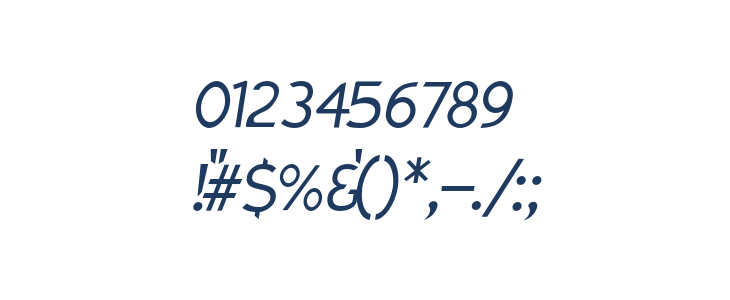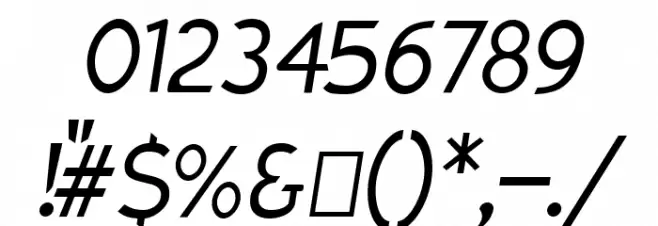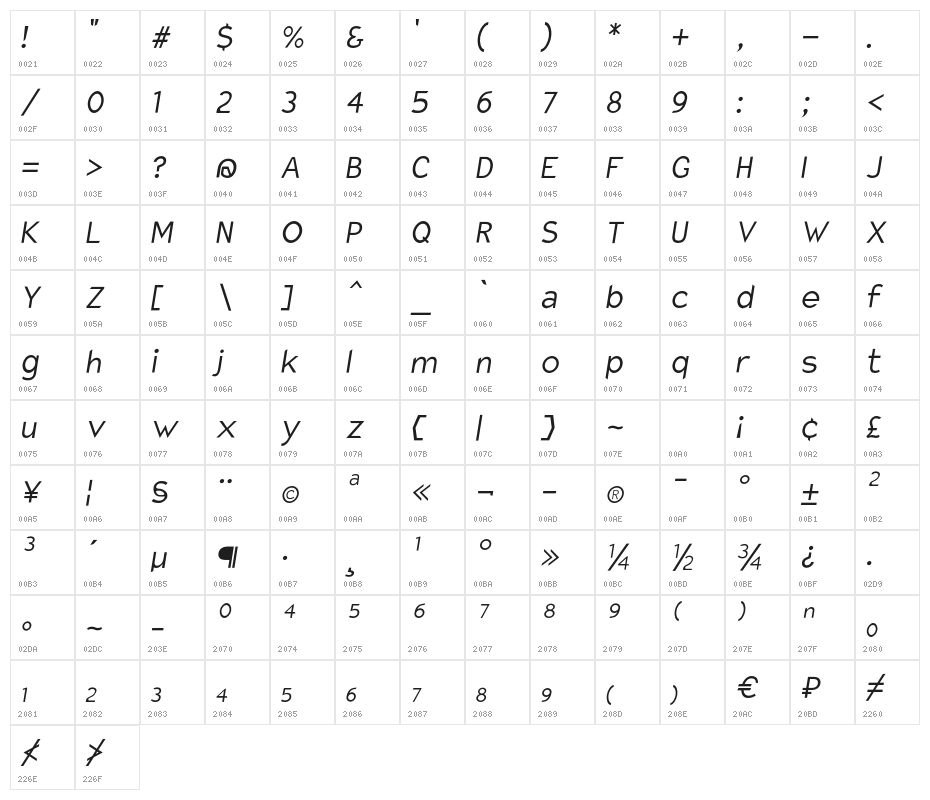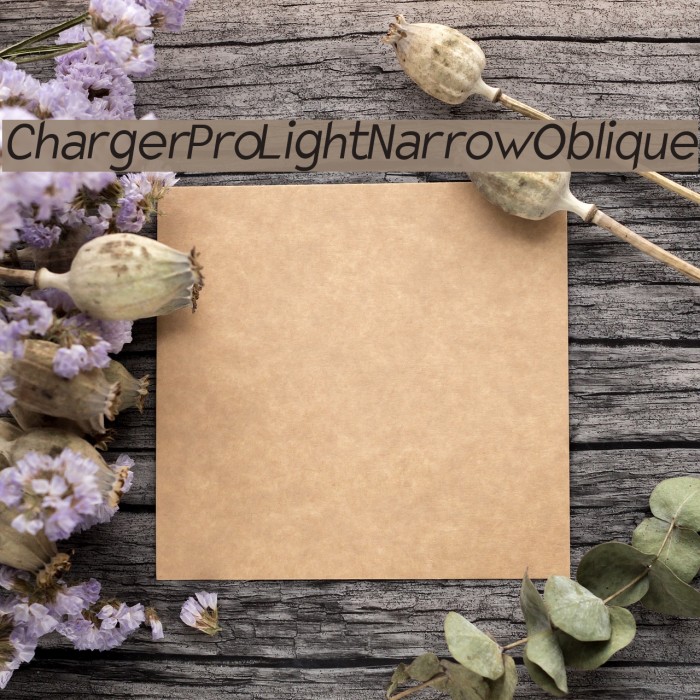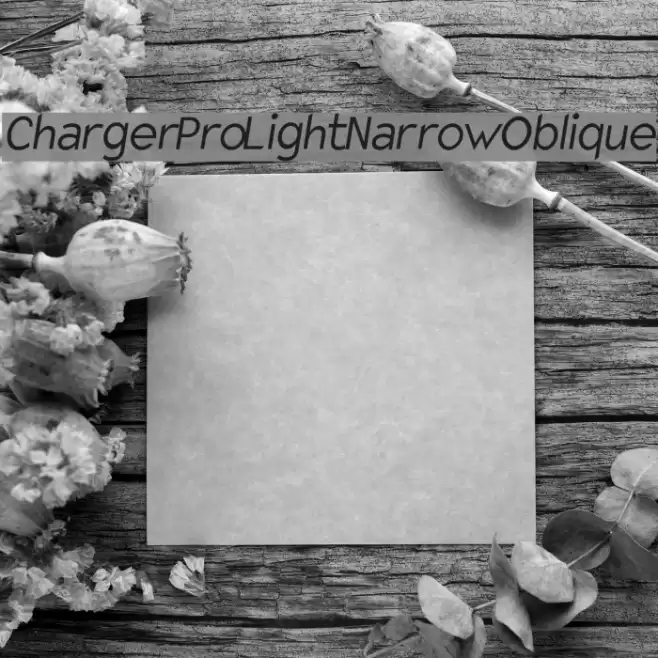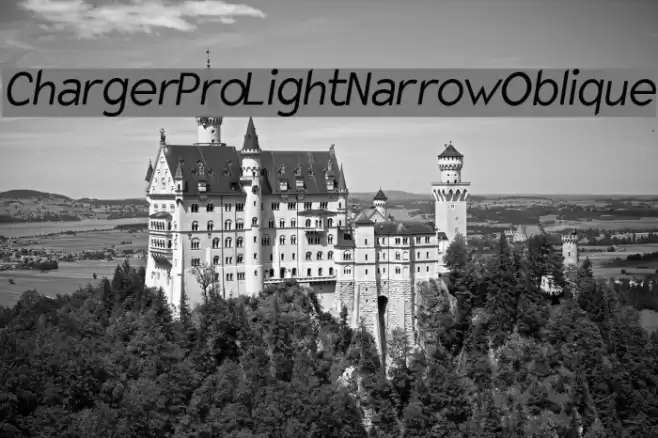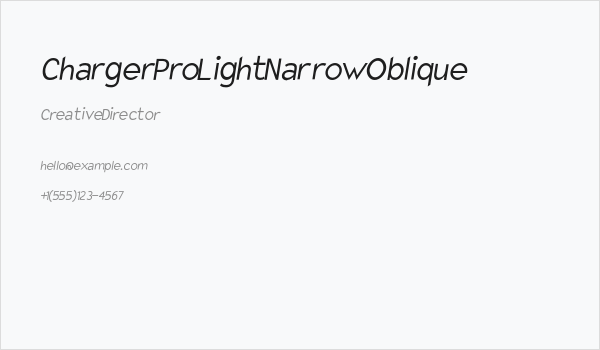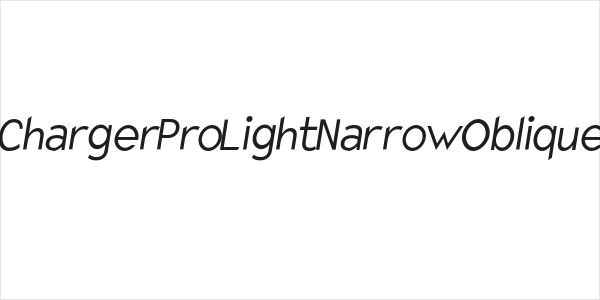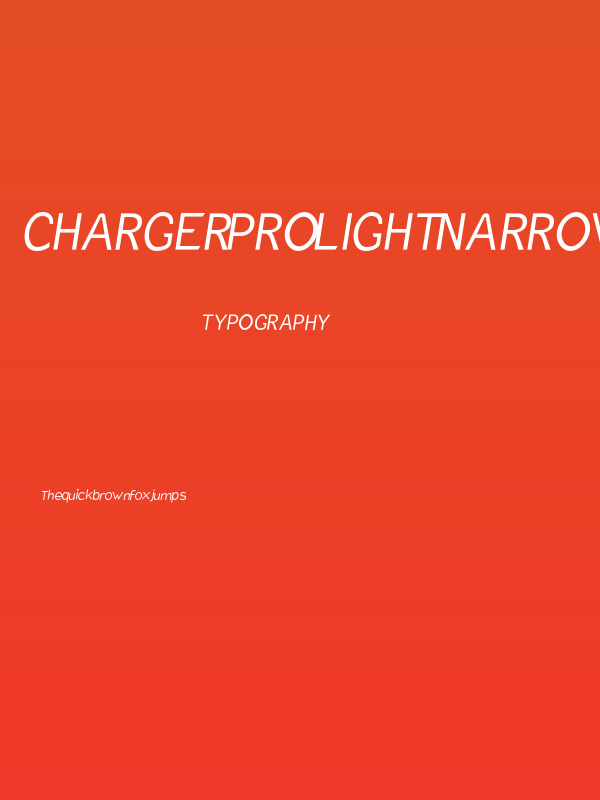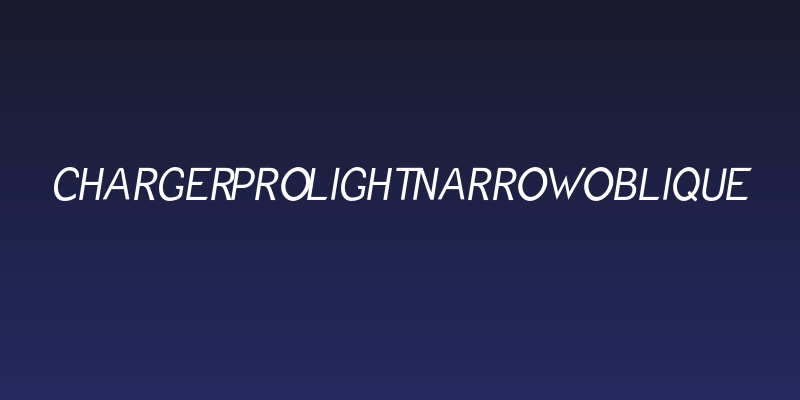
Charger Pro Light Narrow Oblique Font
Charger Pro Light Narrow Oblique Description
This font presents a sleek and modern aesthetic with its oblique style, characterized by a light weight and narrow width. The letters are slightly slanted, giving a dynamic and forward-moving appearance. The clean lines and minimalistic design make it suitable for contemporary projects. The character spacing is tight, enhancing its streamlined look. The font maintains a consistent stroke width, resulting in low contrast, which contributes to its uniform and polished appearance. The overall style is modern and professional, making it versatile for various design applications.
| Proposed Projects | Ideal for branding, advertising, and digital interfaces where a modern and professional look is desired. |